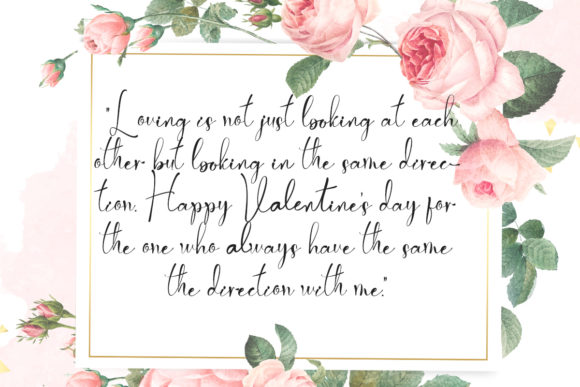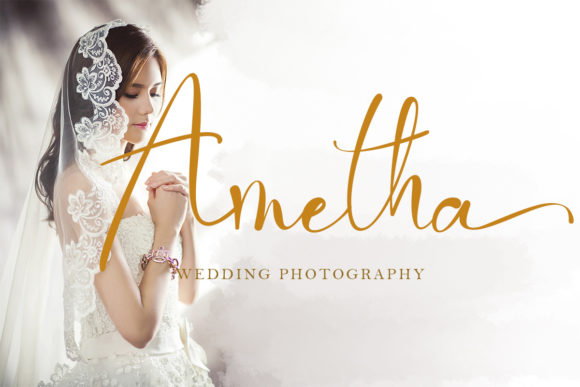
Valentine Moon Font
db-ku.com - Script & Handwritten -- Valentine Moon is a romantic and sweet calligraphy typeface with characters that dance along the baseline. It can be used for various purposes such as logos, wedding invitations, headings, t-shirts, letterhead, signage, labels, news, posters, badges and so much more. This font is PUA encoded which means you can access all of the glyphs and swashes with ease!